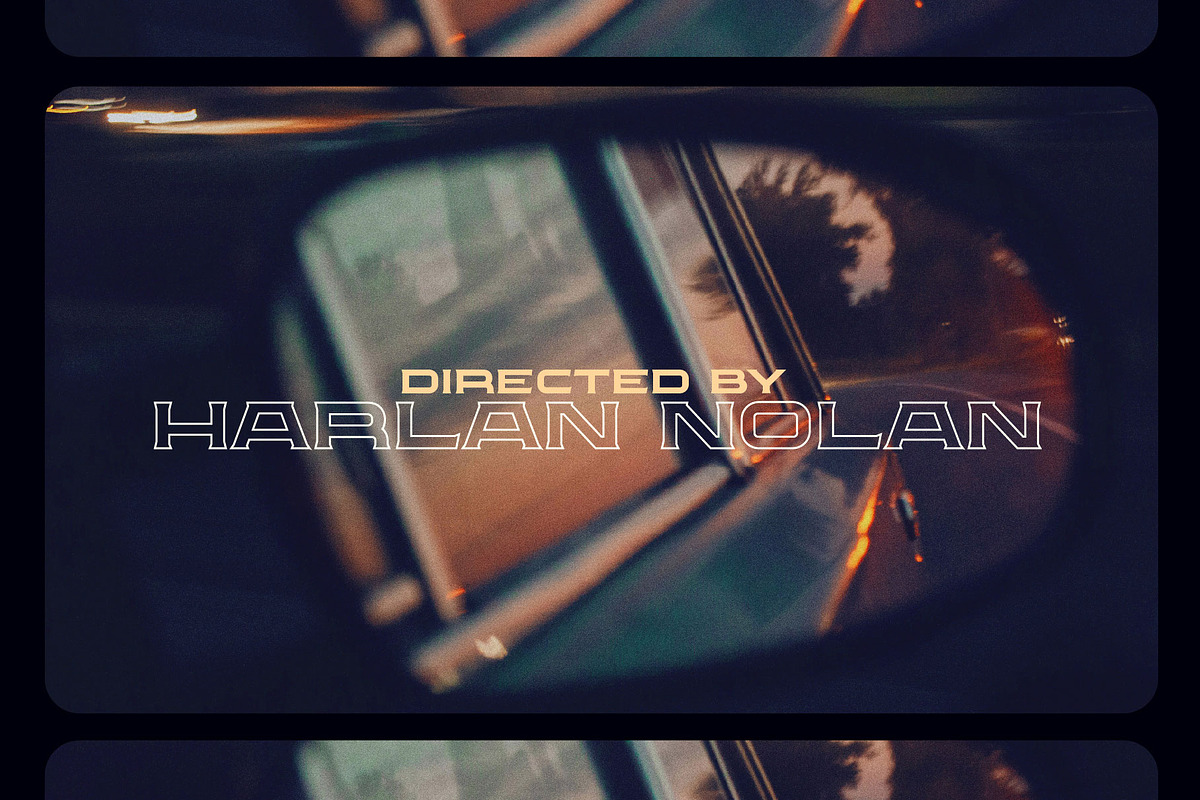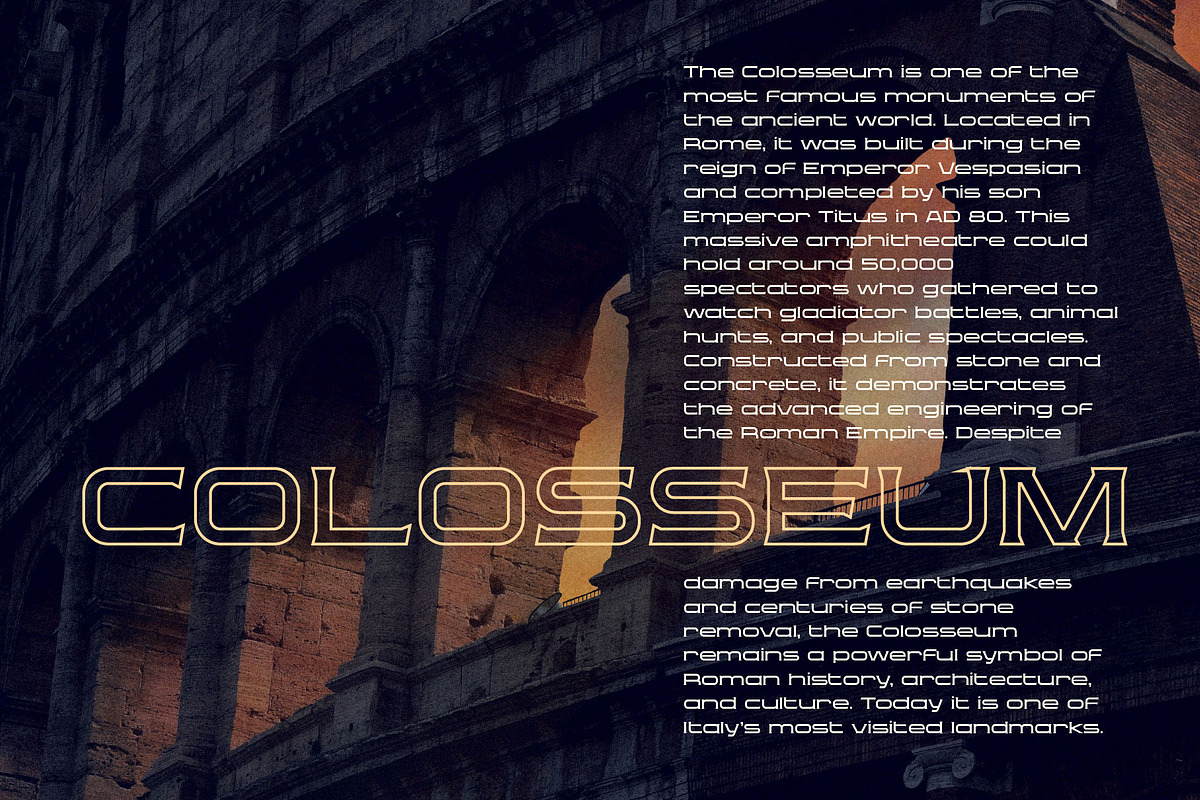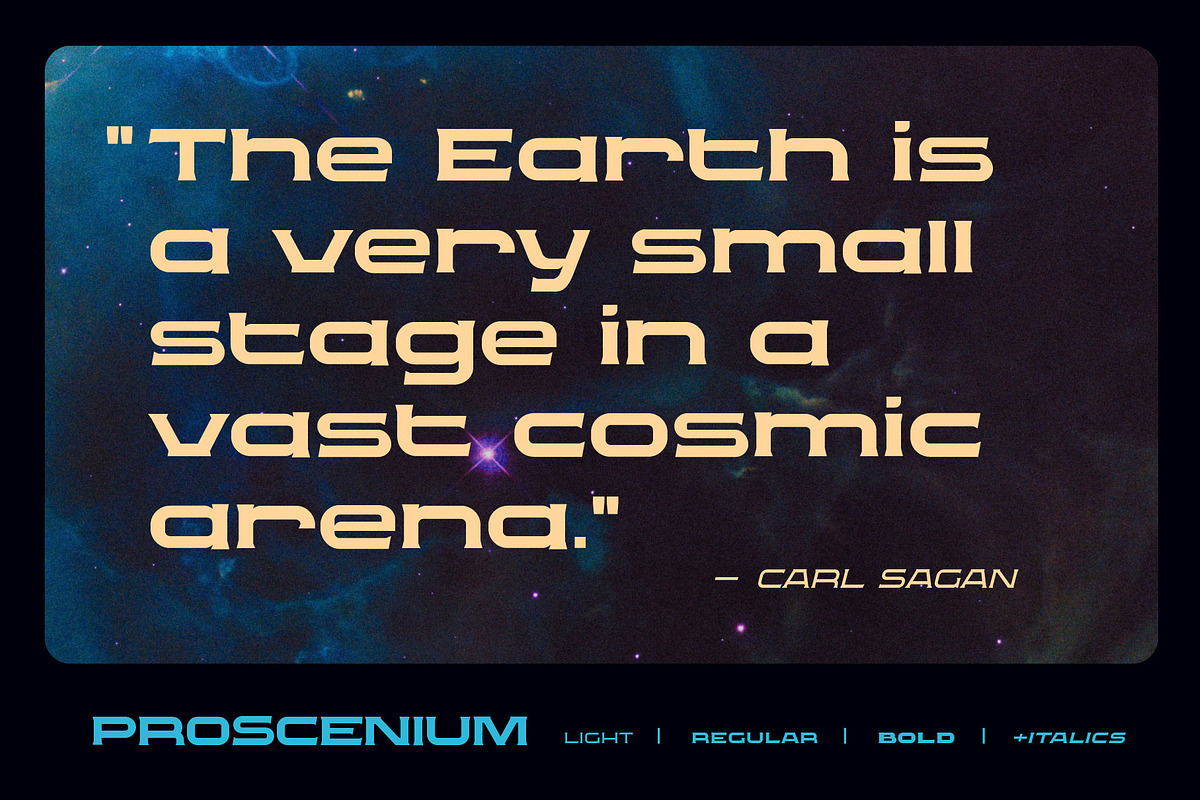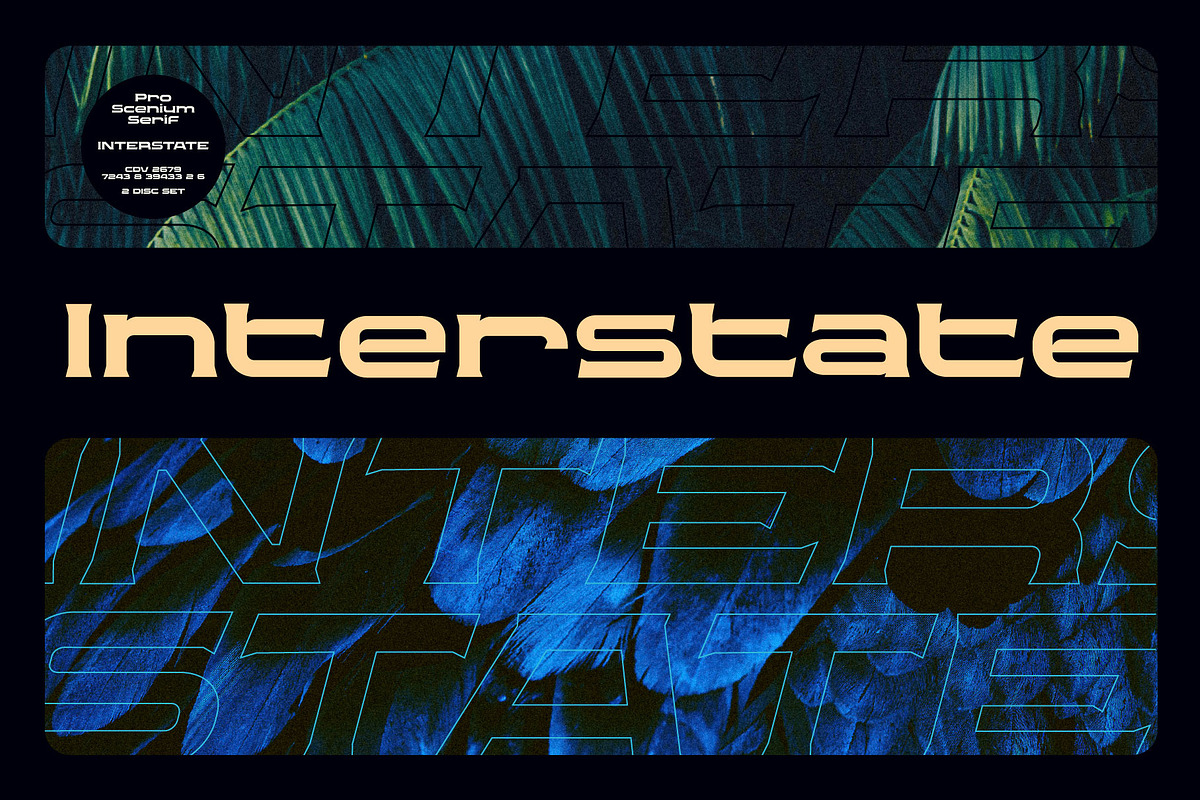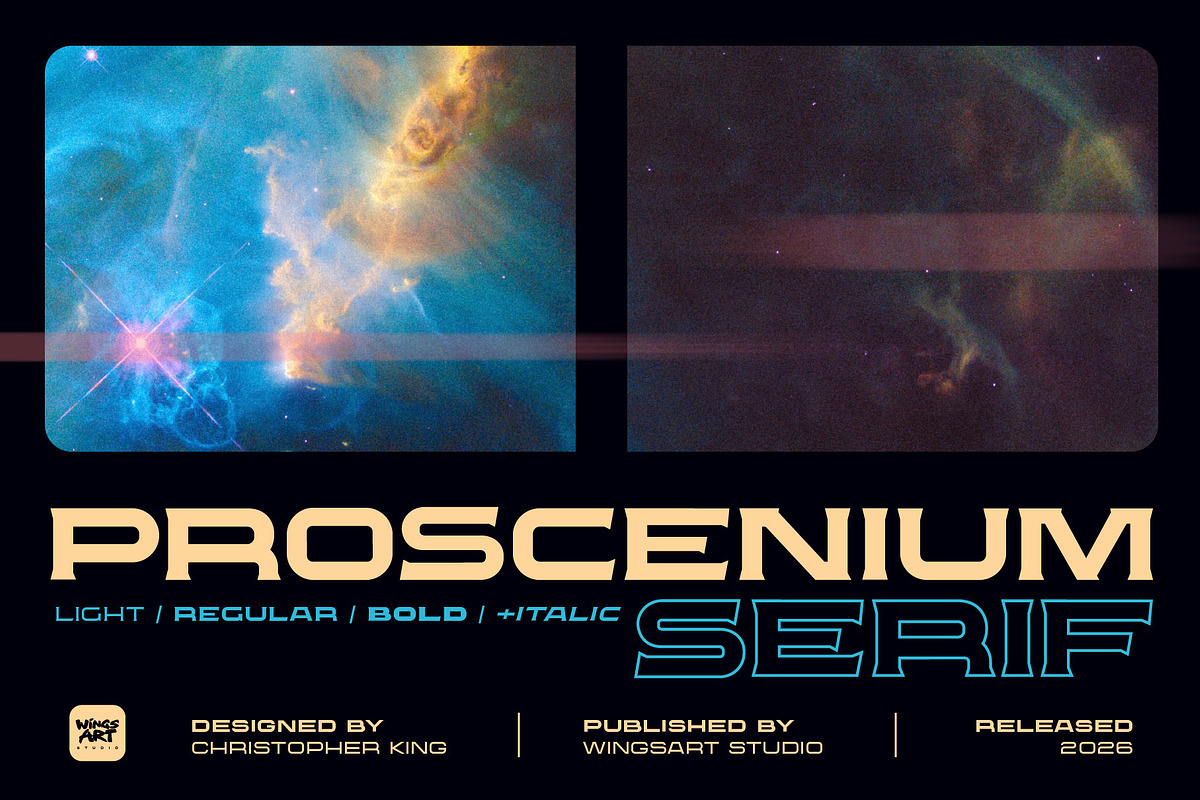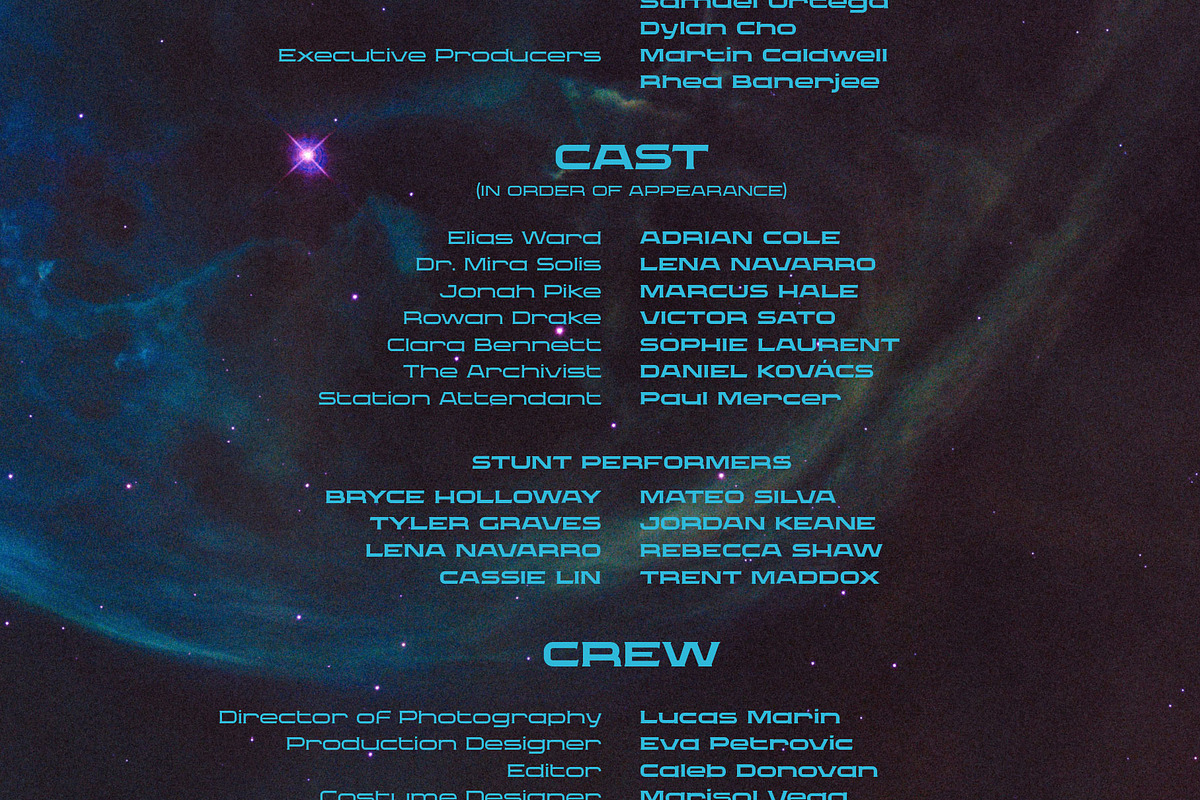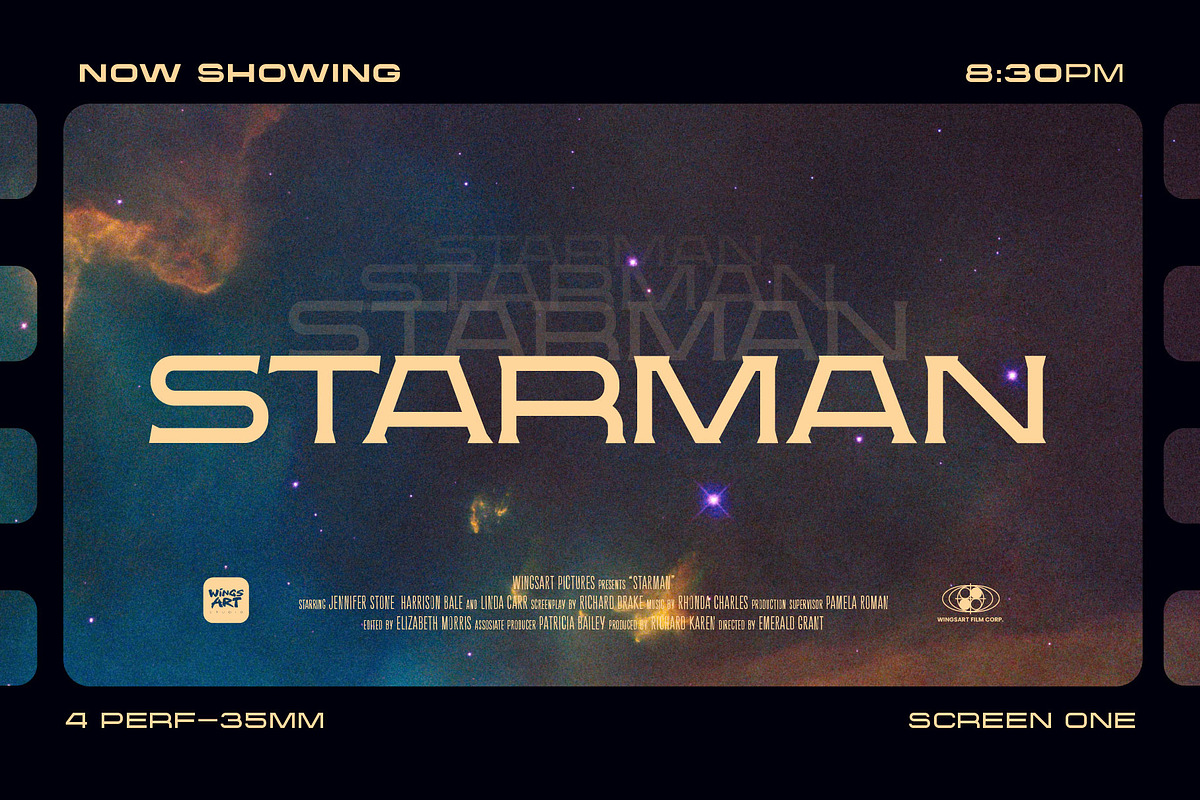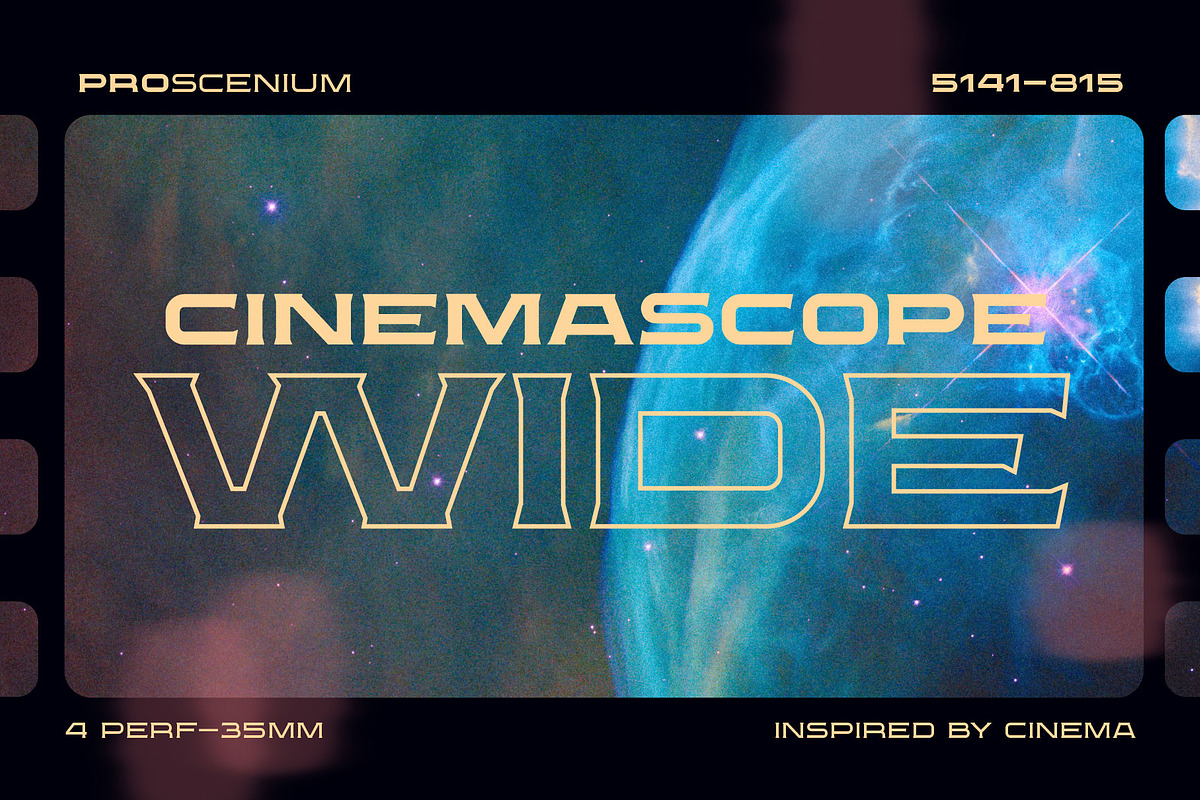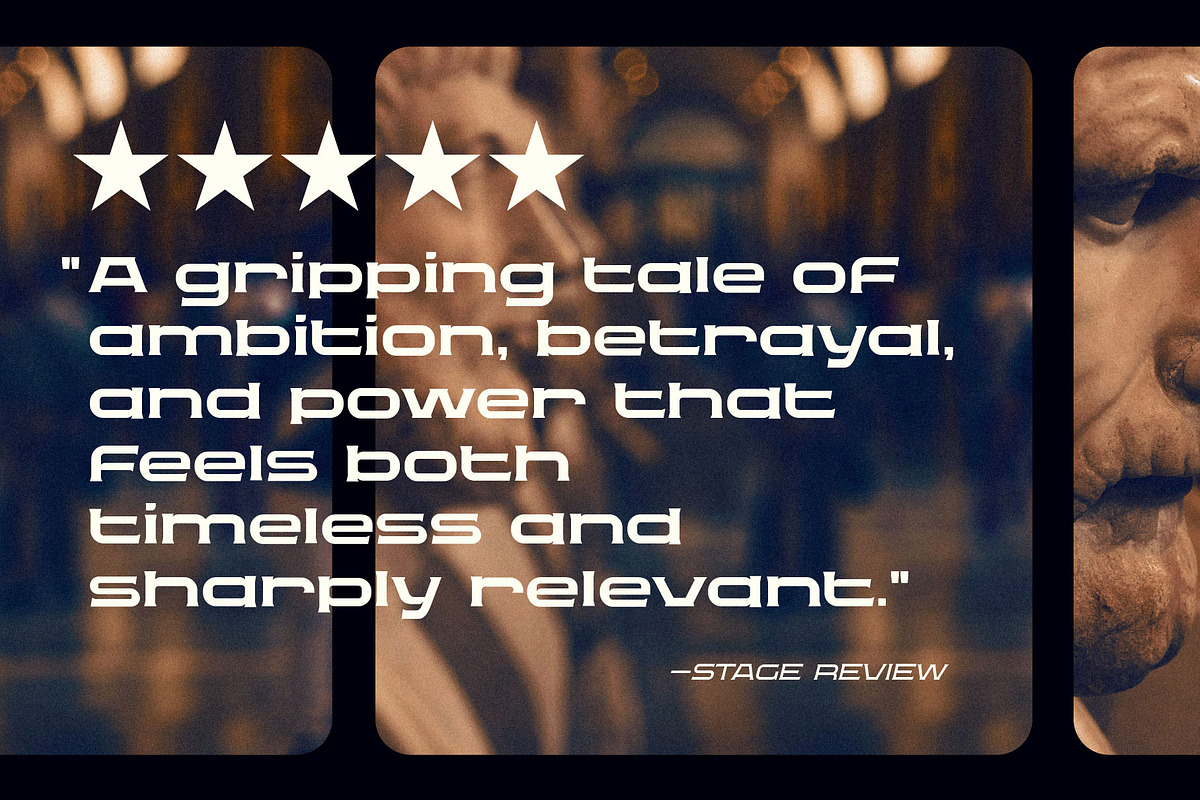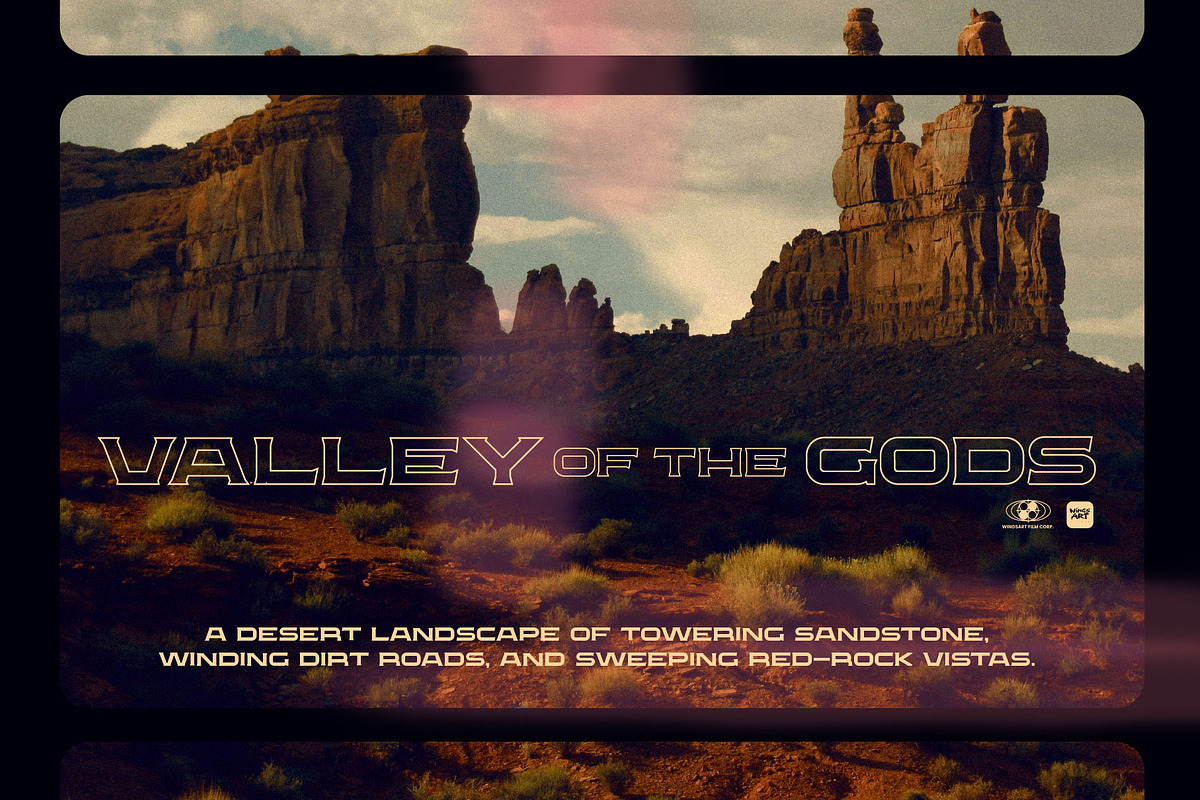
Proscenium Serif - A Widescreen Font
Proscenium Serif - A Widescreen Title Font Designed for Cinema
Proscenium Serif is an impactful serif font designed to compliment the widescreen aspect ratio of big screen movie productions.
Inspired by the typography of opening titles and credit sequences, the Proscenium series was created to match letterbox style aspect ratios, typical of 35, 65, or 70mm cinema film formats. It boasts a clean, legible style that projects a mature strength, while versatile enough to sit comfortably among contemporary, period or science-fiction genres. It's works equally well across print and digital media, making for impactful headers or quotes for magazine editorials, album art or social media.
It comes in three weights: Light, Regular and Bold, along with italic styles, all including complete uppercase and lowercase alphabets, numerals, punctuation, symbols, and multilingual support.